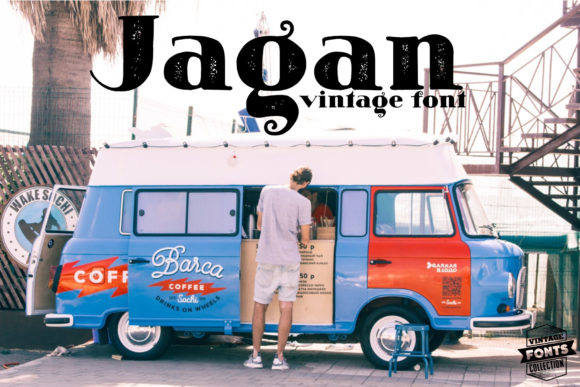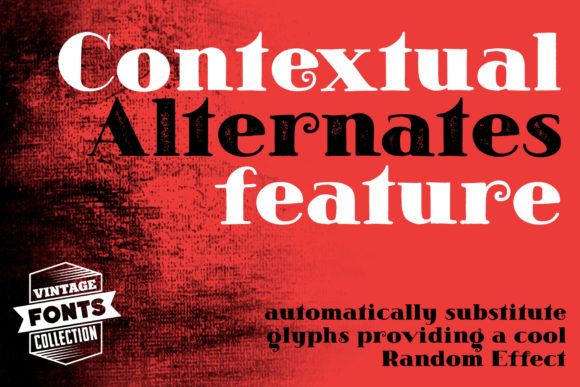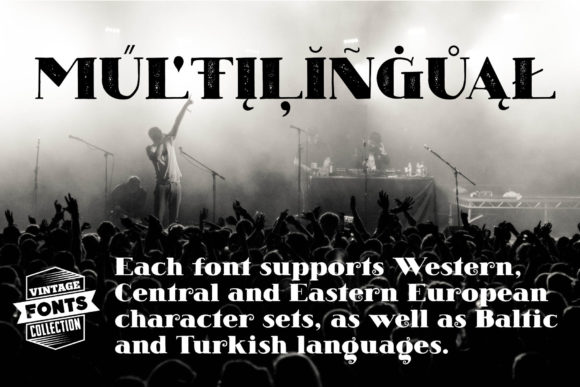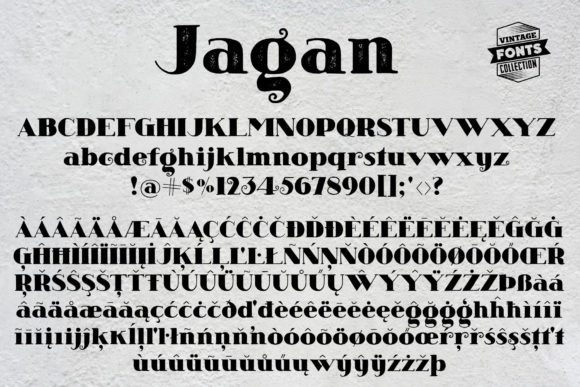
The Perfect Match for Your Next Creative Project
Have you ever been working on a design project, pouring your heart and soul into it, and then, just as you’re about to finalize the layout, you need that one perfect font to tie everything together? That’s exactly what happened to many designers who discovered the Jagan Font.
Jagan Font is a stunning serif font with a retro feel that adds a classic touch to any creative idea. Its elegant lines and subtle nuances make it an excellent choice for designers who want to evoke a sense of nostalgia and sophistication. Whether you’re working on a branding project, a magazine, or a book cover, Jagan Font is sure to impress.
What makes Jagan Font truly valuable is its versatility. It can be used in a variety of contexts, from modern to vintage-inspired designs, making it a go-to choice for designers who want to add a touch of classic elegance to their work.
Jagan Font Key Features
- Font Family: Jagan Font is a unique, hand-drawn font family designed to evoke a sense of elegance and sophistication.
- Language Support: Jagan Font supports a wide range of languages, including Latin, Cyrillic, and Devanagari scripts, making it a versatile choice for global designs.
- Unique Characteristics: Features intricate details, ornate flourishes, and subtle texture, giving it a distinctive and eye-catching appearance.
Jagan Font Review
As a designer, I was excited to try out the Jagan font. Here’s my honest review:
- Unique style: Jagan font has a distinctive, elegant style that’s perfect for adding a touch of sophistication to your designs.
- Legibility: The font is highly legible, making it great for body text and paragraphs where readability is key.
- Versatility: Jagan font can be used for a wide range of applications, from headlines to captions, and even for web design.
- Not ideal for bold or dramatic headings: While Jagan font is elegant, it may not be the best choice for bold or dramatic headings where a more striking font is needed.
- May not work well in small sizes: The font may become too light or difficult to read when used in small sizes, so it’s best to use it at larger sizes.
Overall impression
Overall, I think Jagan font is a great addition to any designer’s toolkit. While it has some limitations, its unique style and versatility make it a great choice for many applications. With some careful selection and usage, Jagan font can add a touch of elegance and sophistication to your designs.
Tips for Getting the Most Out of Jagan Font
Use Jagan Font for creating elegant and sophisticated designs. Experiment with different font sizes and styles to achieve the desired effect. For best results, pair Jagan Font with complementary fonts and color schemes.
Jagan Font is ideal for creating invitations, wedding stationery, and other formal documents. It’s also suitable for logos, branding materials, and high-end marketing collateral.